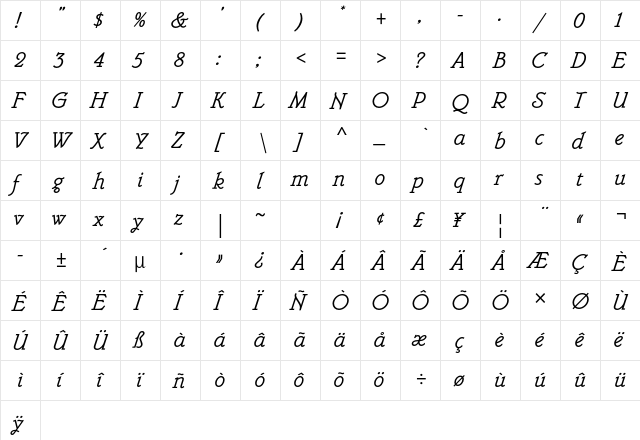
Belwe Mono Std Italic
| Designer | Alan Meeks |
Belwe Mono Std uses fixed-width spacing throughout, giving it the structured, systematic character associated with coding environments and technical documentation. The slanted form adds forward momentum and visual energy.